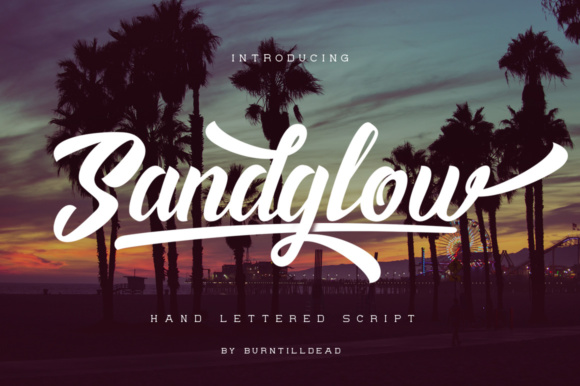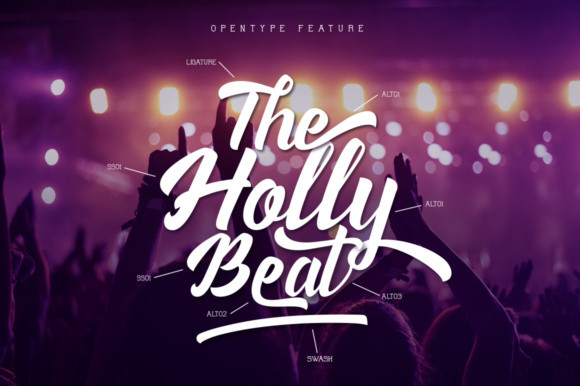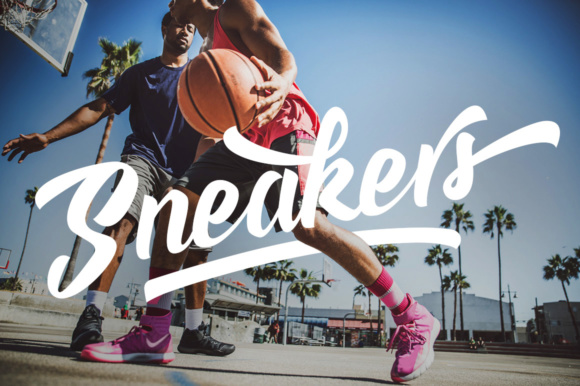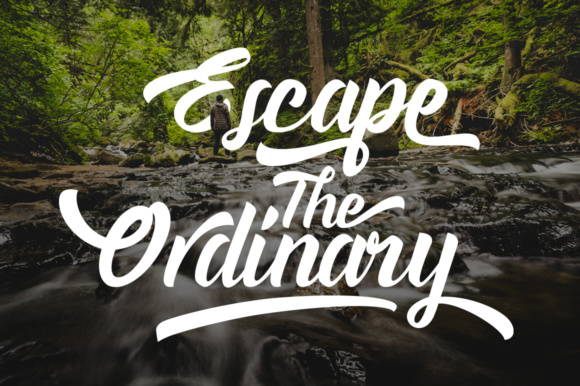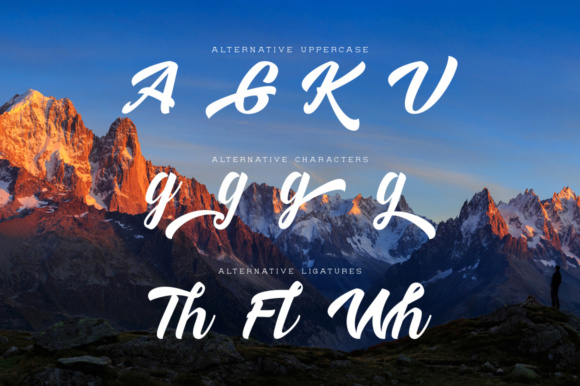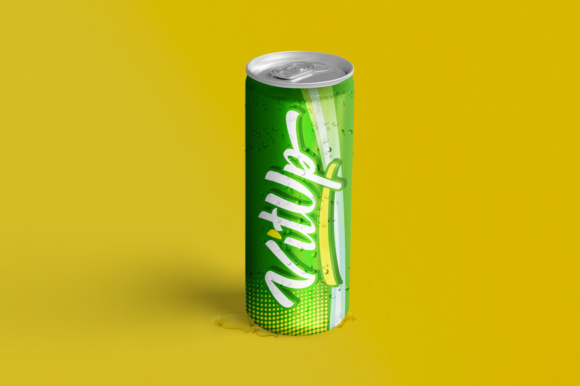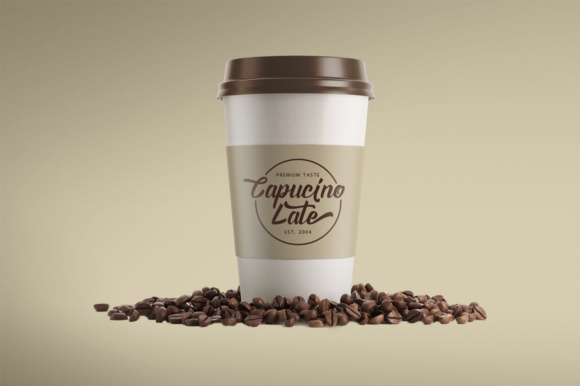
Sandglow Font
About Sandglow Font
Sandglow is a beautiful hand-lettered script typeface with a distinct and clear style with a dramatic movement. This font allows one to create beautiful designs in an instant with added swashes and style.